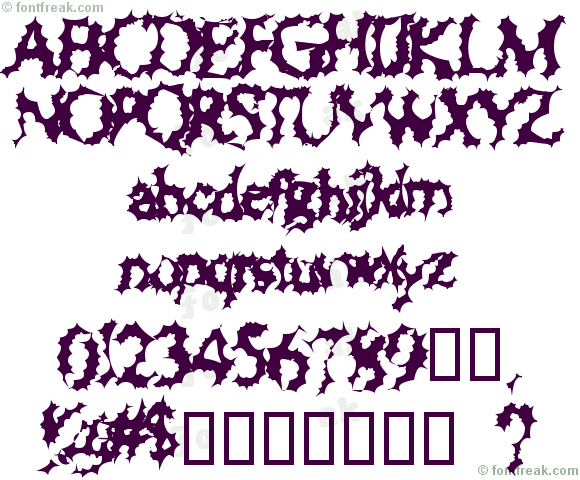
About Chewed Straw
Chewed Straw is a distinctive display font from Omega Font Labs, classified as a decorative typeface. Its unique visual characteristics make it stand out with a playful, rugged appearance, reminiscent of handwritten styles. The font features irregular stroke weights and an uneven contrast that gives it a hand-crafted feel. The spacing is relatively tight, enhancing its dynamic and energetic vibe. Decorative elements like jagged edges and sharp peaks add to its whimsical nature, making it an ideal choice for projects that seek to convey a sense of fun and creativity.
Best suited for eye-catching applications, Chewed Straw is perfect for use in movie posters, quirky branding, and vibrant restaurant menus. Its playful aesthetic can also elevate wedding invitations, particularly for those with a casual or rustic theme, where a touch of whimsy is desired. Small business owners looking to establish a unique identity will find this font effective in logo design and promotional materials. Content creators can use it to add flair to social media graphics or website headings that aim to capture attention.
The target audience for Chewed Straw includes graphic designers, small business owners, and content creators who appreciate a bold, unconventional style. This font resonates with those aiming to create memorable impressions through their visual communications.
In conclusion, Chewed Straw stands out for its distinctive and playful design, offering a refreshing alternative to traditional typefaces. Its ability to convey personality and character makes it an excellent choice for a variety of creative projects. For those interested in exploring its unique charm, a Chewed Straw font free download is available, allowing users to incorporate this eye-catching typeface into their work effortlessly.